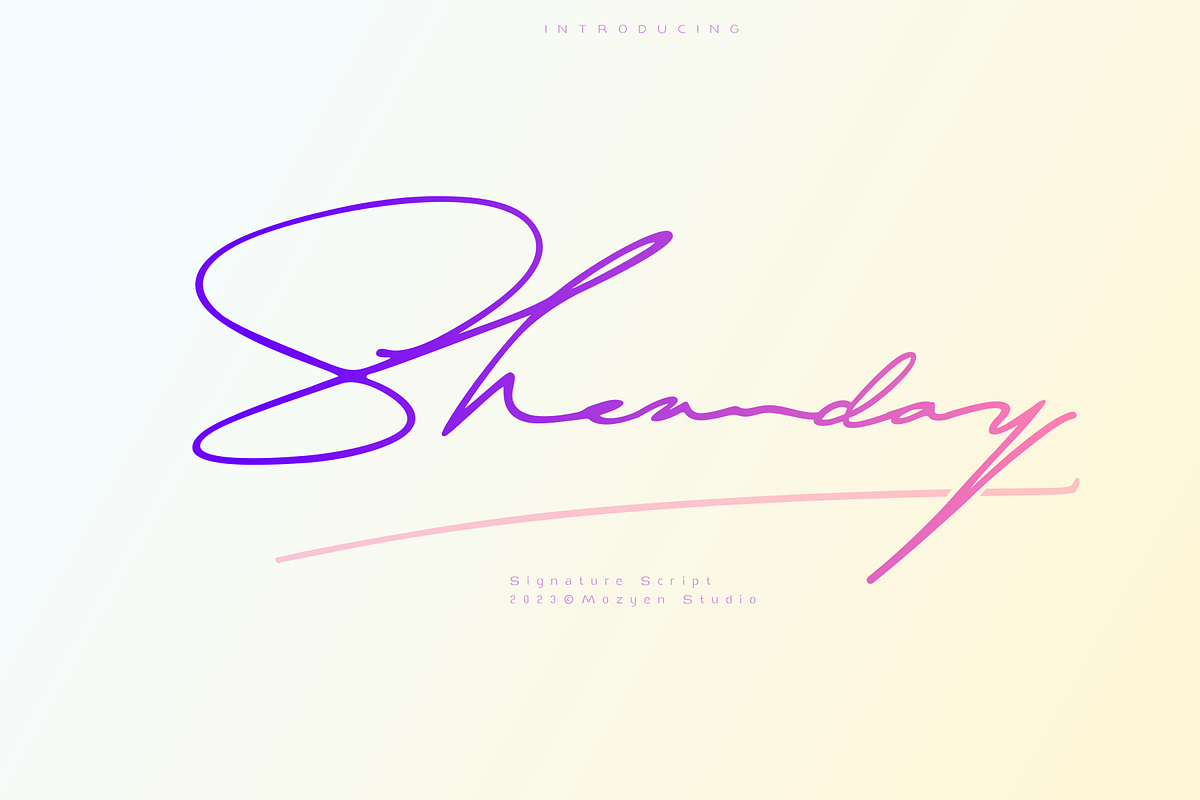
Please note that you must purchase this font for commercial use. You can download Sheanday – Signature Script Font for free, strictly for personal testing purposes only. Sheanday is an elegant signature script font designed with smooth, flowing strokes that mimic natural handwriting. With its graceful curves and refined design, Sheanday Font Free Download is perfect for creating sophisticated logos, invitations, branding, and any project that requires a personal, artistic touch.
The font exudes a sense of luxury and elegance, making it ideal for high-end branding, wedding invitations, and creative personal projects. It includes uppercase and lowercase letters, numerals, punctuation, and multilingual support, offering versatility for various creative applications.
Whether you're designing a custom logo, crafting elegant invitations, or adding a unique touch to your branding, Sheanday brings an authentic, handwritten flair to your typography.